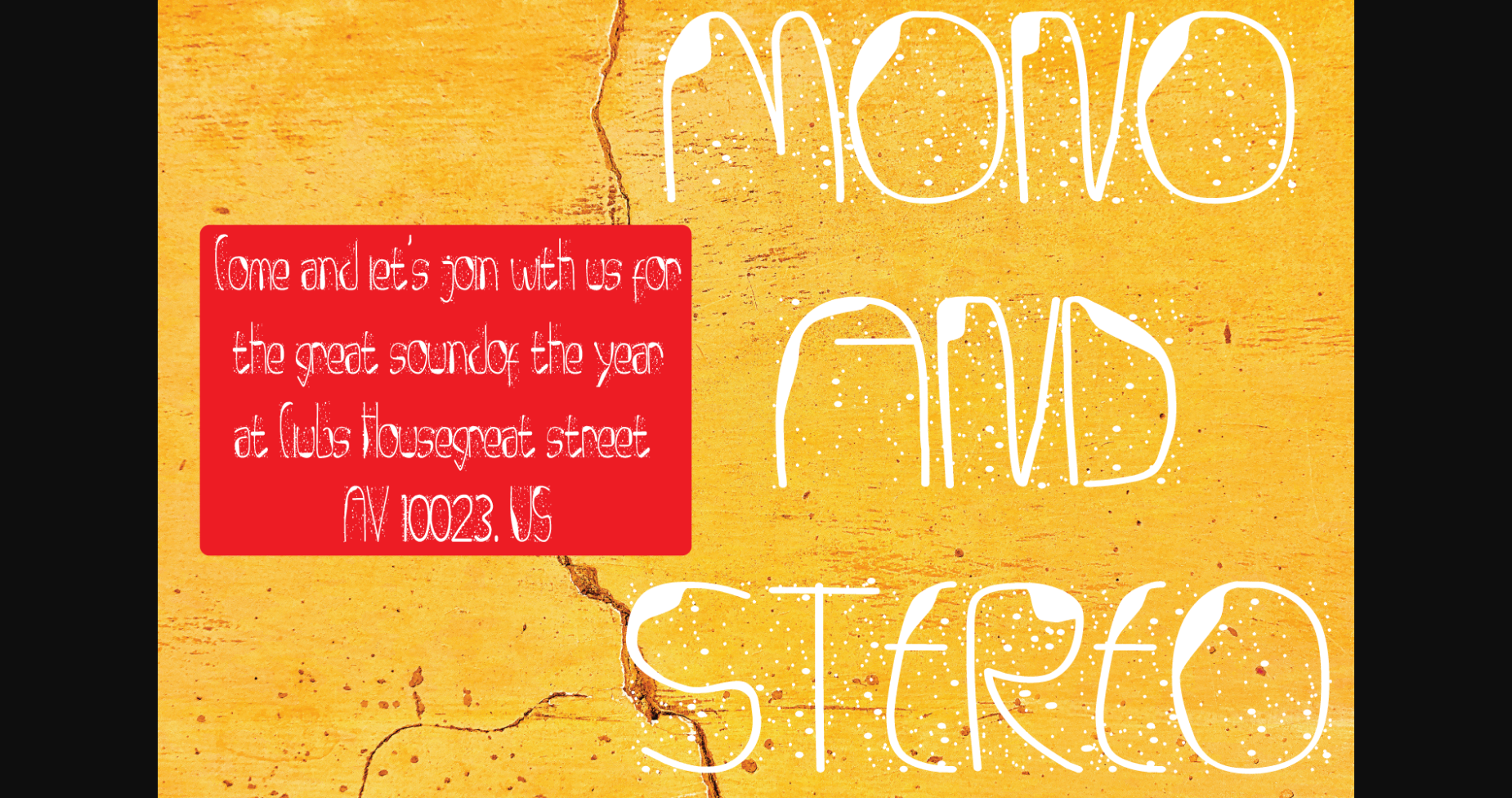
About Gravel Font
Gravel is a classy sans serif font perfect for any designing project. Add it with confidence to your logos, brandings, invitations, websites, packaging, and many more, and you will see your work come to life!